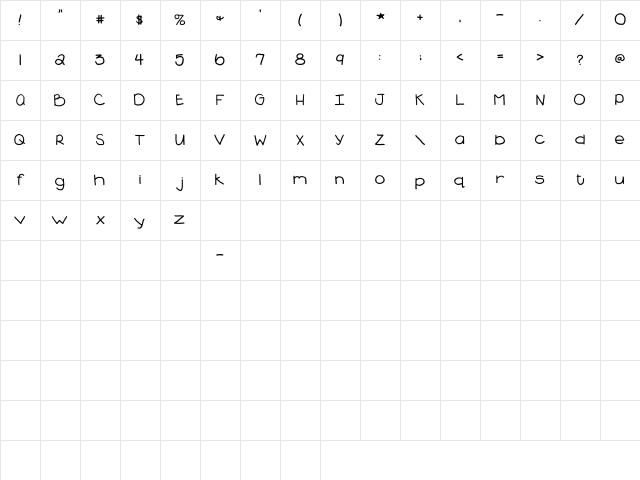
Design Context for 2Peas Blueberry Pie
2Peas Blueberry Pie is a composed and adaptable typeface that performs quietly and consistently across a wide range of design contexts.
Pro Tip: Use 2Peas Blueberry Pie in both headline and body roles to test its range before committing to a single application.